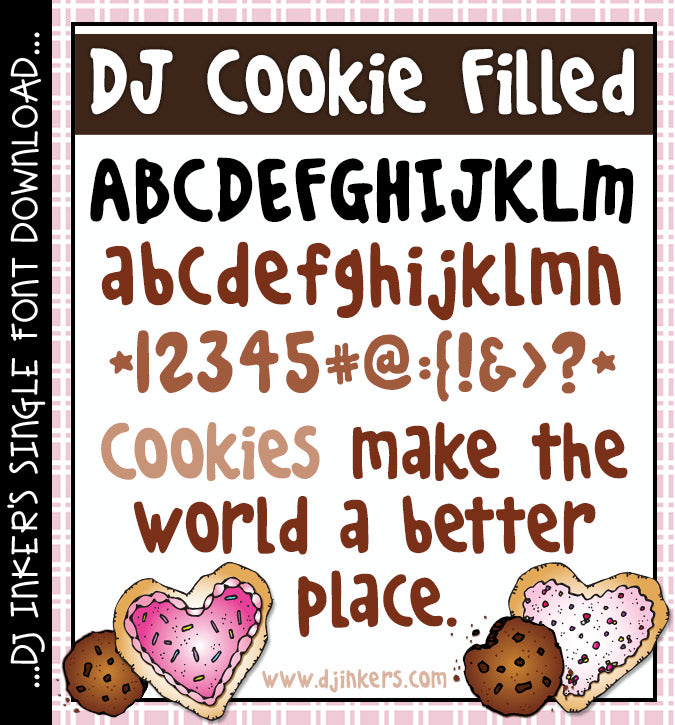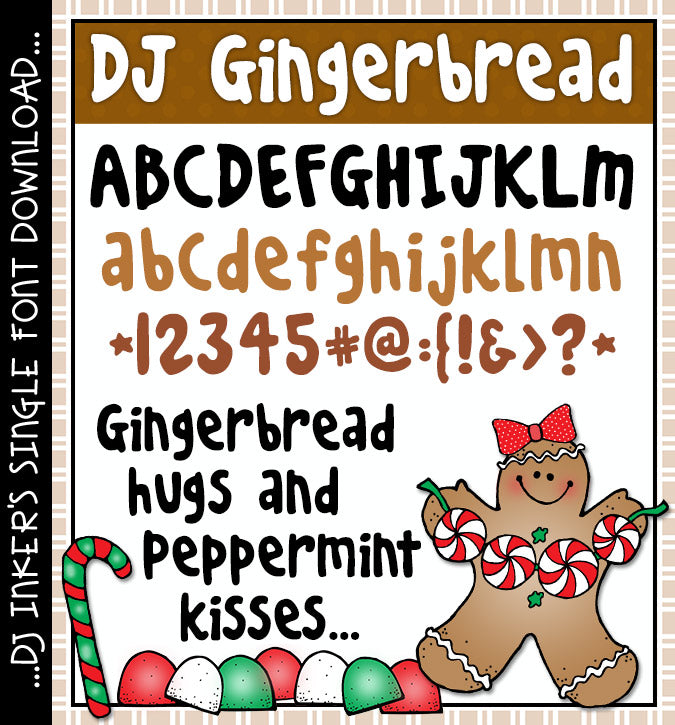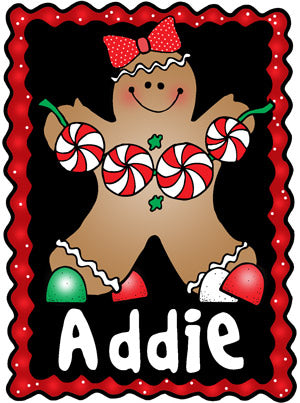
DJ Cookie Filled Font Download
Type-up a something sweet with our bold and whimsical DJ Cookie font... Filled with smiles.
It will look deliciously cute for happy headlines, holiday parties, Grandma's
house, cookie exchanges & bake sale labels, preschool, birthdays and
homemade delights. Taste a new DJ font today!
Also includes basic Spanish characters. Hand drawn lettering
by Dianne J Hook © DJ Inkers.
Oh snap! This font is also known as DJ Gingerbread.